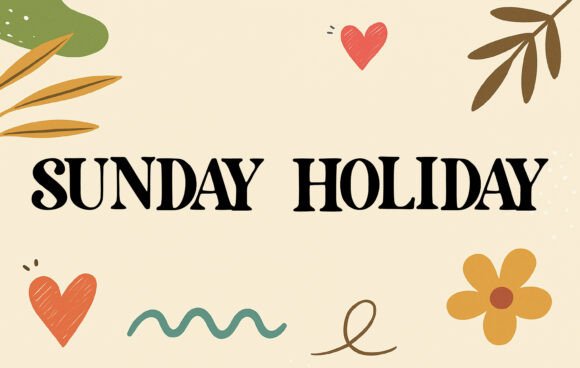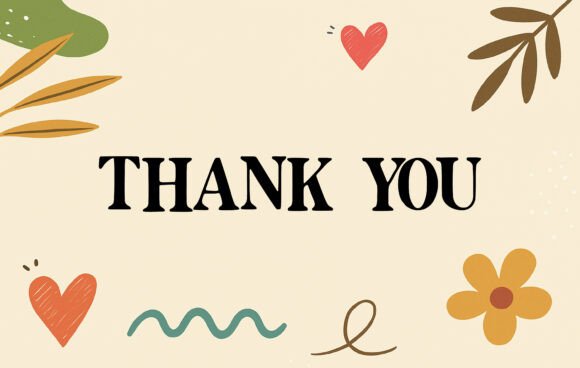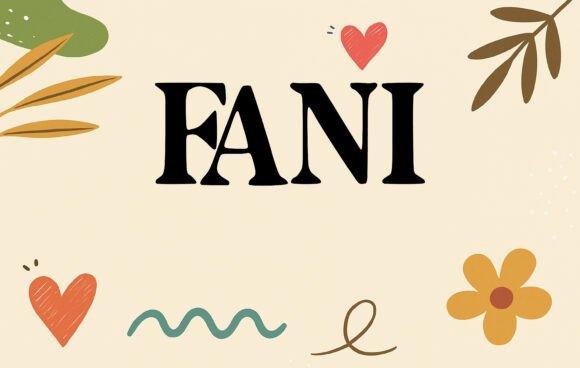
Fani Font: Elevate Your Creative Projects with Style and Legibility
In the world of design, the right font can make all the difference. It’s the perfect blend of style, legibility, and creativity that can turn a good design into a great one. If you’re a designer, crafty DIY enthusiast, or simply someone who loves to dabble in creative projects, you’re in luck. Introducing Fani Font, a versatile and visually stunning typeface designed to take your creative ideas to new heights.
The Design Behind Fani Font
Fani Font is crafted with precision and passion, boasting a unique design that’s both modern and timeless. Its clean lines, elegant curves, and perfectly balanced proportions make it an instant favorite among designers and crafters alike. Whether you’re working on a magazine headline, a t-shirt design, or a wedding invitation, Fani Font is the perfect choice.
Why Choose Fani Font?
So, what sets Fani Font apart from other fonts out there? Here are just a few reasons why it’s a must-have for any creative project:
• Legibility: Fani Font is designed to be easy to read, making it perfect for both title and body text. Its clear and concise design ensures that your message gets across, no matter the medium.
• Versatility: From magazine headlines to social media graphics, Fani Font is the perfect choice for a wide range of design projects. Its flexibility and adaptability make it a valuable addition to any designer’s toolkit.
• Aesthetic Appeal: With its elegant and modern design, Fani Font adds a touch of sophistication to any project. Its unique style is sure to grab attention and leave a lasting impression.
Endless Design Possibilities with Fani Font
The possibilities are endless when it comes to using Fani Font in your creative projects. Here are just a few ideas to get you started:
• Magazine Headlines: Make a bold statement with Fani Font as your headline font. Its eye-catching design is sure to draw readers in and make your magazine stand out.
• T-Shirt Designs: Create custom t-shirt designs that are both stylish and legible. Fani Font is perfect for creating bold and eye-catching graphics that will make your designs pop.
• Social Media Graphics: Take your social media graphics to the next level with Fani Font. Its modern design and clean lines make it perfect for creating engaging and shareable content.
• Wedding Invitations: Add a touch of elegance to your wedding invitations with Fani Font. Its sophisticated design is sure to impress your guests and set the tone for your special day.
• Branding: Establish a strong brand identity with Fani Font. Its unique style and versatility make it perfect for creating a cohesive brand image across all your marketing materials.
Tips for Using Fani Font Effectively
To get the most out of Fani Font, here are a few tips to keep in mind:
• Experiment with Sizes: Fani Font looks great in a variety of sizes, from small body text to large headlines. Experiment with different sizes to find the perfect fit for your project.
• Play with Colors: Fani Font is versatile enough to work with a wide range of colors. Try pairing it with bold and bright colors to create eye-catching designs.
• Mix and Match: Don’t be afraid to mix and match Fani Font with other fonts to create a unique and visually appealing design.